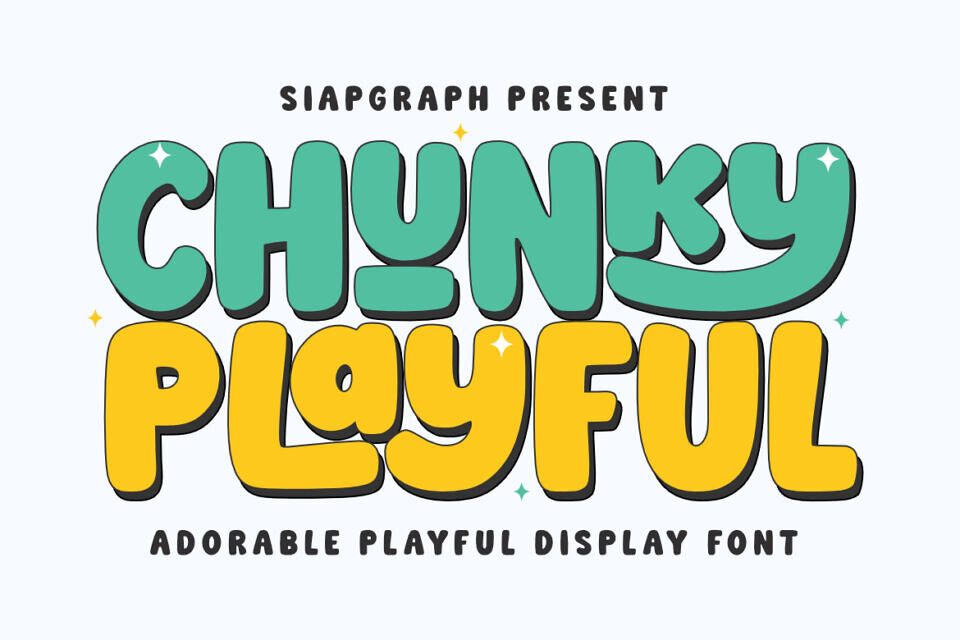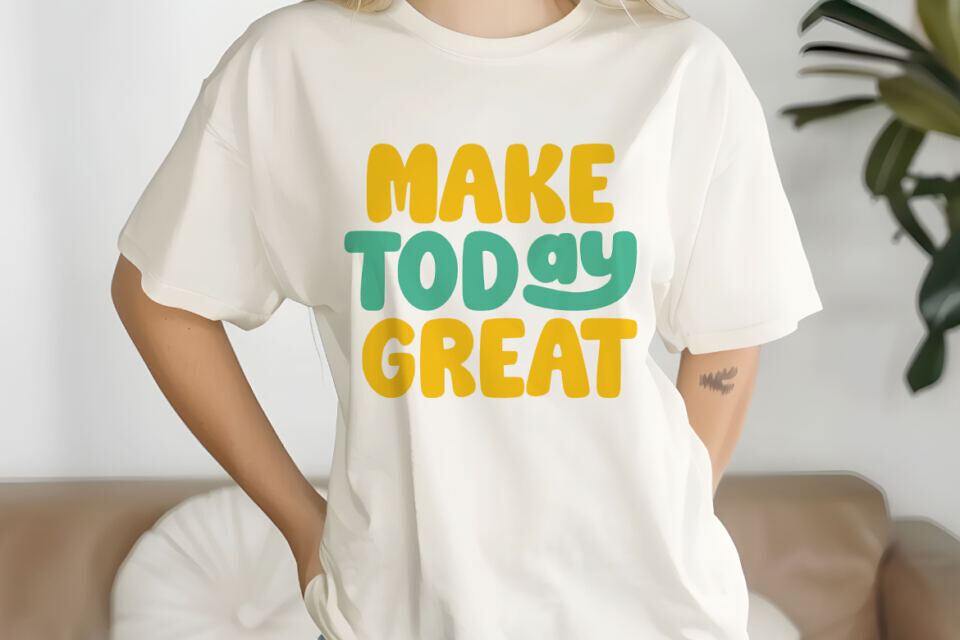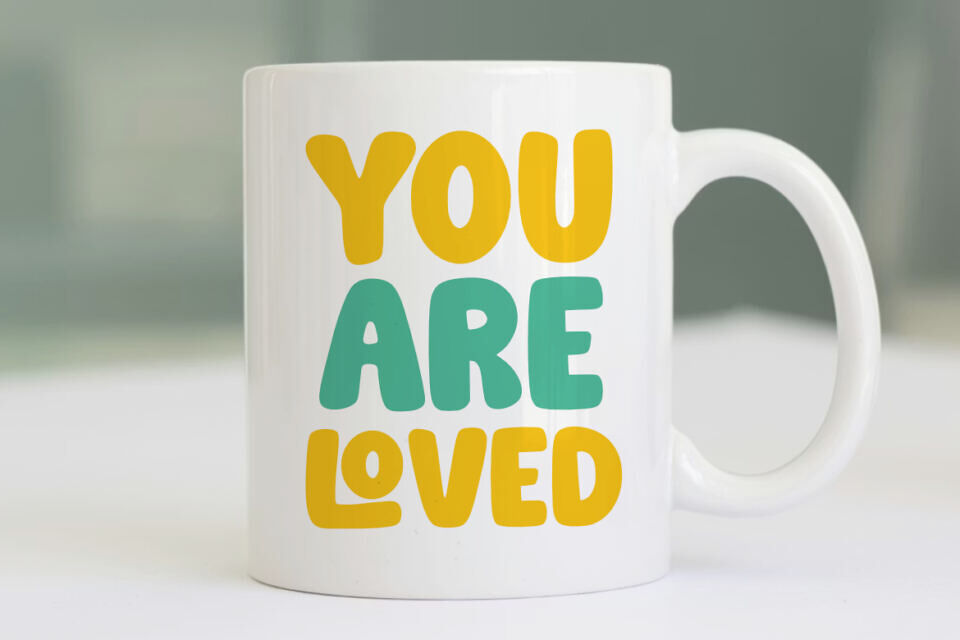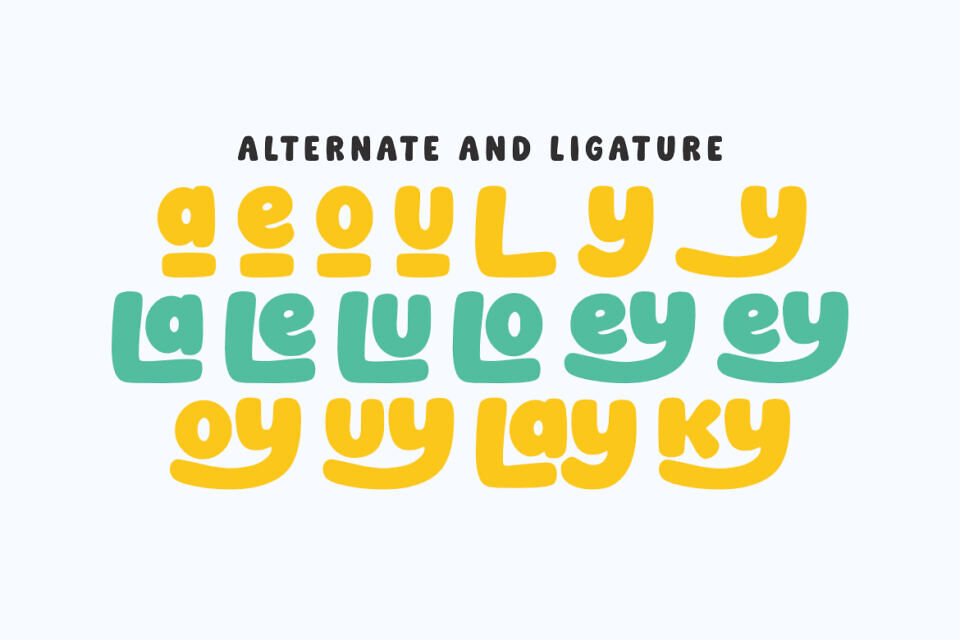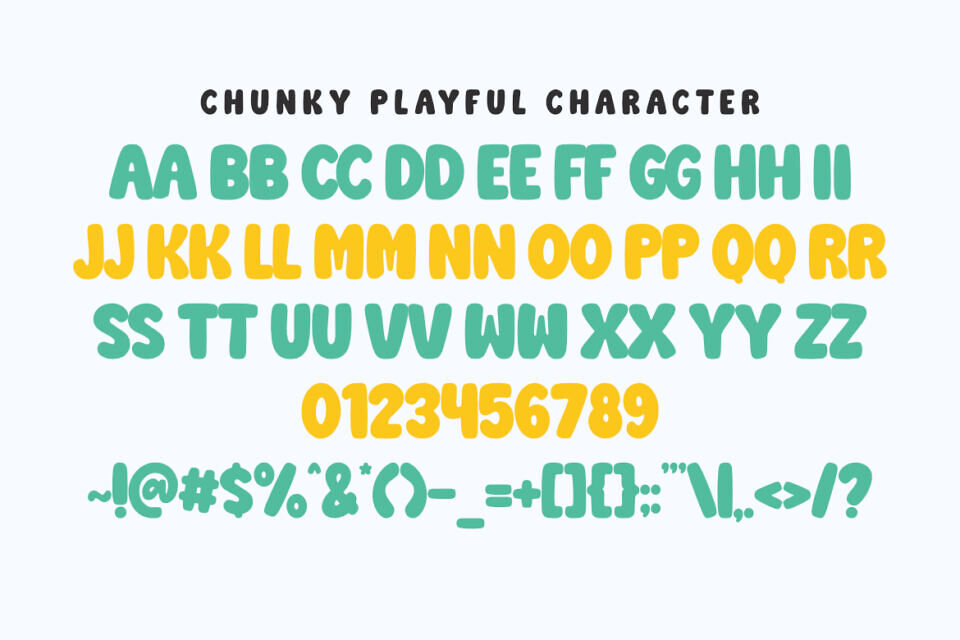
Chunky Playful is an adorable bubbly display font inspired by the soft, rounded shapes of retro pop culture and cheerful childhood snacks. This typeface features bold, thick strokes and a friendly, energetic personality designed to bring an instant sense of joy and warmth to your creative projects.
This font is ideal for crafters, DIY enthusiasts, and print-on-demand designers. Its clean design makes it perfect for vinyl cutting, sublimation, and digital printing. It’s great for creating custom designs, such as kids’ tees, stickers, and social media graphics. The font also suits holiday themes like birthdays, summer vacations, and back to school, adding a bright touch to celebrations.